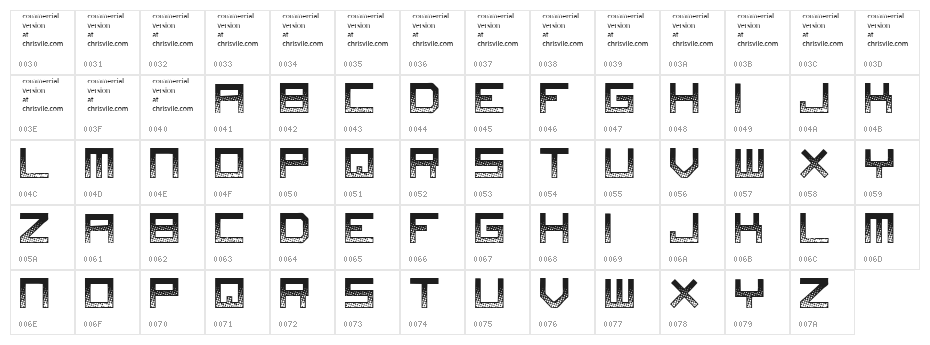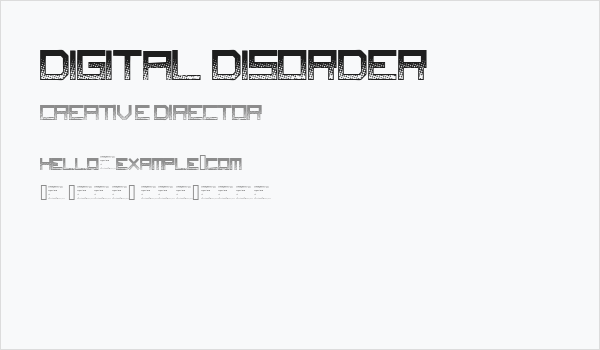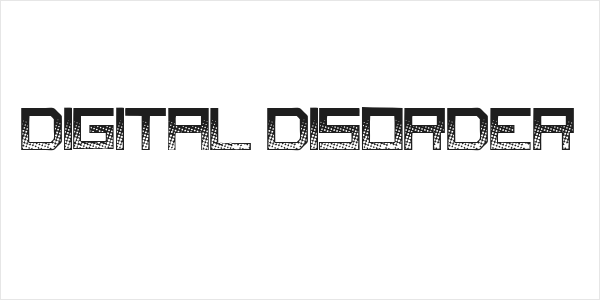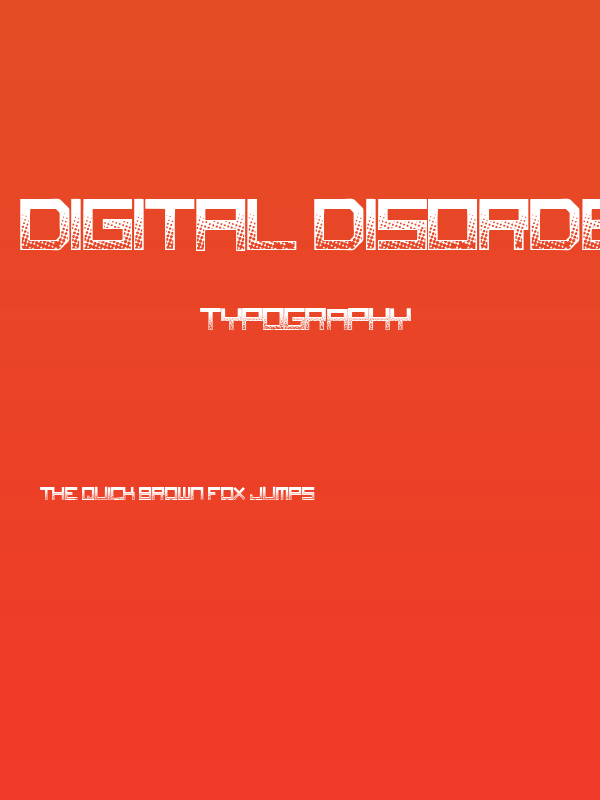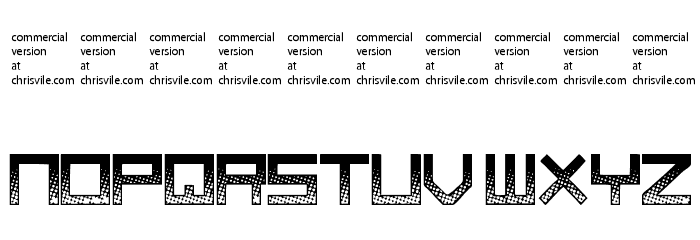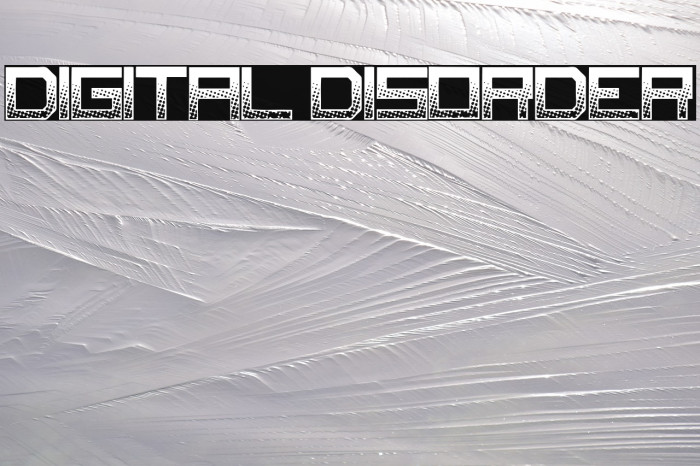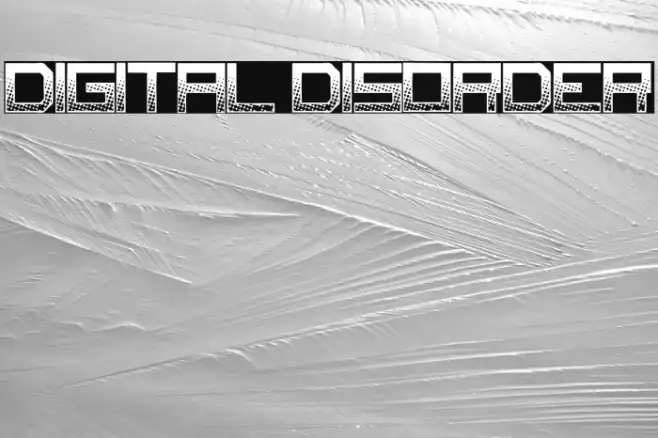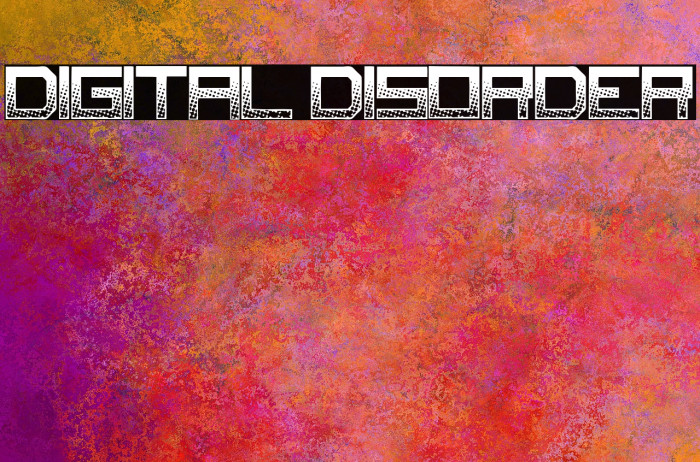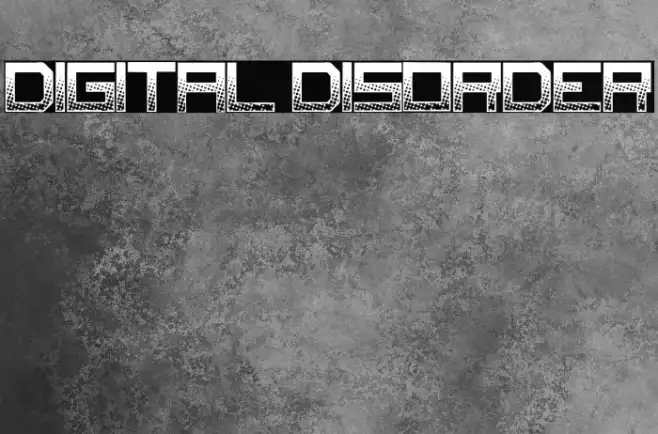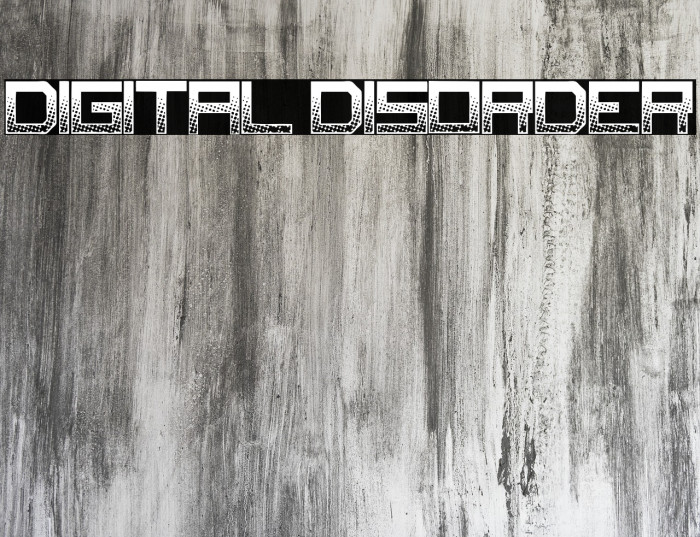
Digital Disorder Font
Digital Disorder Description
This font features a bold, geometric style with a digital, pixelated texture that gives it a modern and edgy appearance. The characters are constructed with sharp angles and straight lines, creating a sense of structure and order. The pixelated texture within each letter adds a layer of complexity and visual interest, making it stand out in any design. The uppercase and lowercase letters maintain a consistent style, ensuring a cohesive look across different text elements. The font's unique design makes it suitable for projects that require a futuristic or tech-inspired aesthetic.
| Proposed Projects | Ideal for tech-related branding, video game graphics, digital art projects, and futuristic-themed posters. |